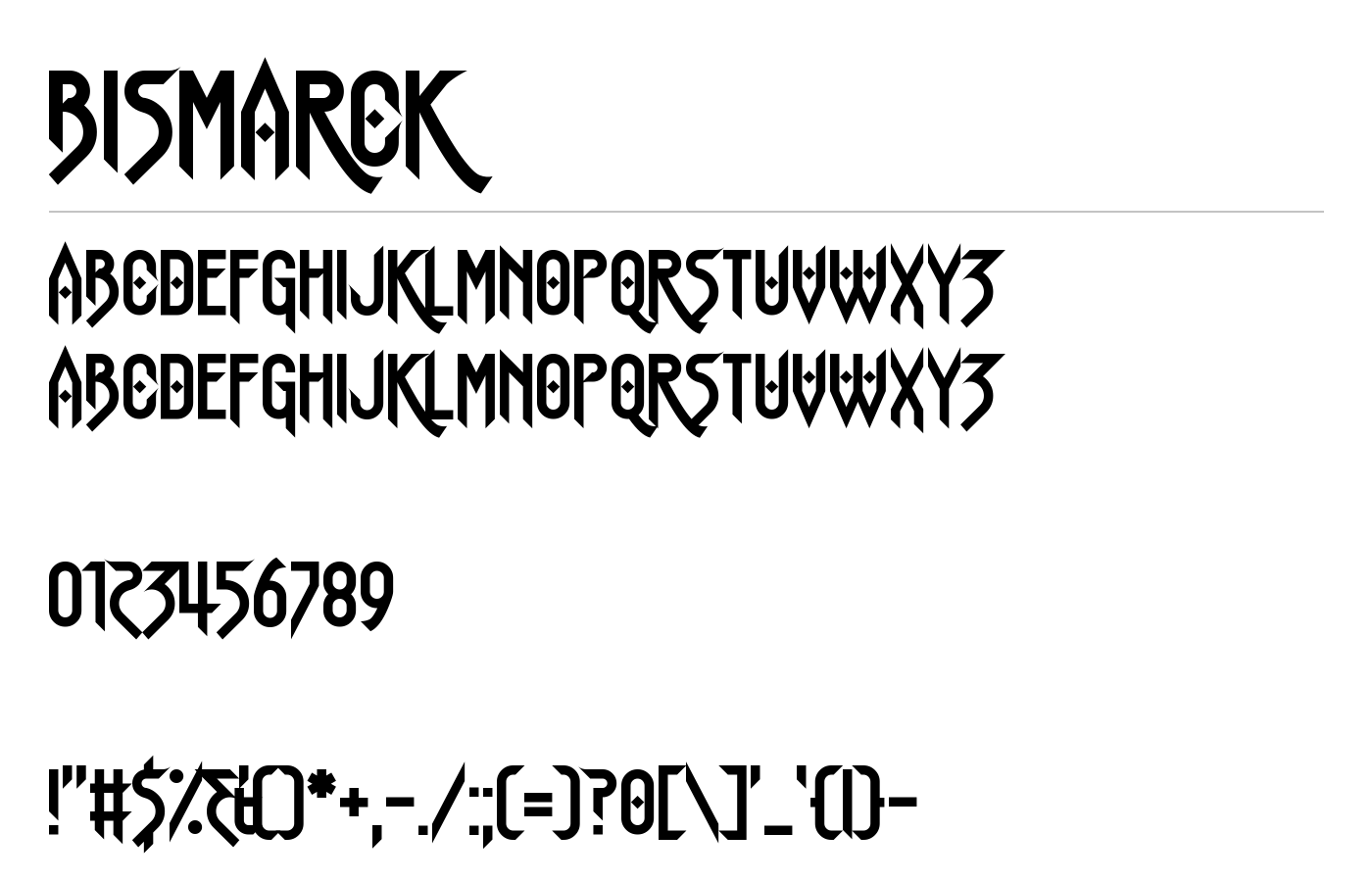
Bismarck is a bold, condensed sans serif font with a sharp, angular design that features striking geometric elements and diamond-shaped details within letters, giving it a distinctive, modern Gothic feel. Its dramatic strokes and unique character shapes make it ideal for attention-grabbing headlines, logos, and branding that require a strong, edgy personality. This font works best in creative projects where a powerful, stylish statement is needed, such as fashion, entertainment, or futuristic themes.
Bismarck Font
About Bismarck Font